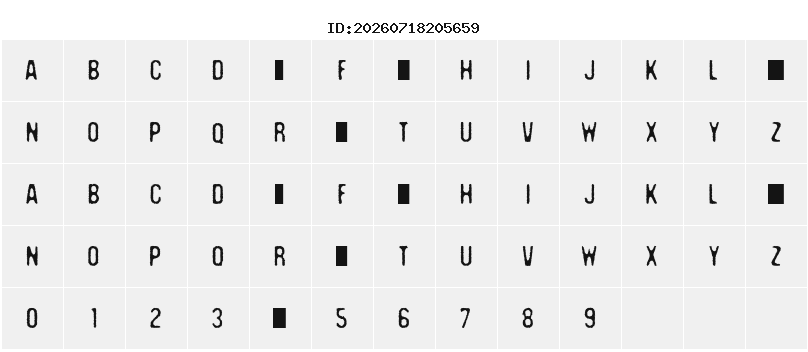
About Crack.ttf
Crack.ttf is a modern, elegant sans-serif font designed for ultimate readability and visual harmony. Perfect for branding, headlines, web design, and print materials.